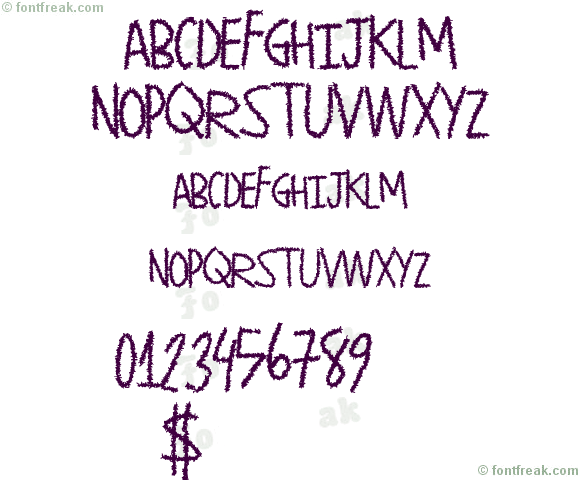
PaperShreads
The PaperShreads font by Xerographer Fonts is a unique display typeface that captures a playful and artistic essence. With its distinct handwritten style, this font features uneven stroke weights that mimic the look of hand-drawn letters, lending an organic and informal vibe to any design. The contrast between thick and thin elements adds character, while the irregular spacing between characters enhances its whimsical appearance. Decorative elements like jagged edges and a slightly rough texture evoke the feel of torn paper, making it an eye-catching choice for various creative projects.
This font is particularly well-suited for a variety of use cases, including wedding invitations where a touch of charm is desired, quirky restaurant menus that aim to stand out, and vibrant event posters that attract attention. Additionally, it can be used effectively in children's books or educational materials, where a fun and engaging aesthetic is essential. Graphic designers, small business owners, and content creators will find this font to be a versatile tool in their design arsenal, perfect for conveying a sense of creativity and originality.
What truly sets the PaperShreads font apart is its ability to infuse personality into any project while remaining approachable. Its free availability as a freeware license allows users to experiment without financial commitment, making it an accessible choice for budding designers and established professionals alike. The PaperShreads font free download opens up a world of possibilities for anyone looking to add a unique touch to their designs. Whether used in print or digital media, this font is sure to leave a lasting impression.